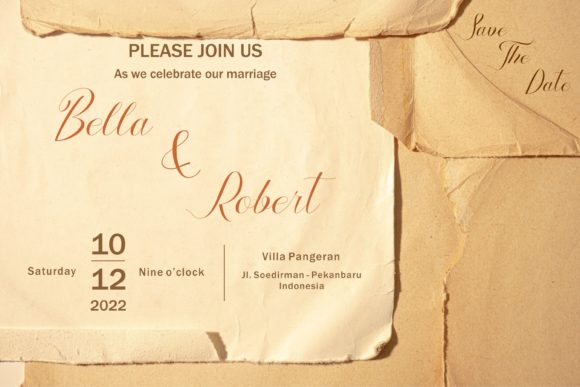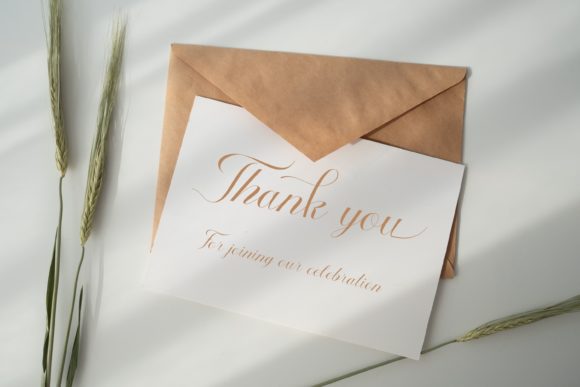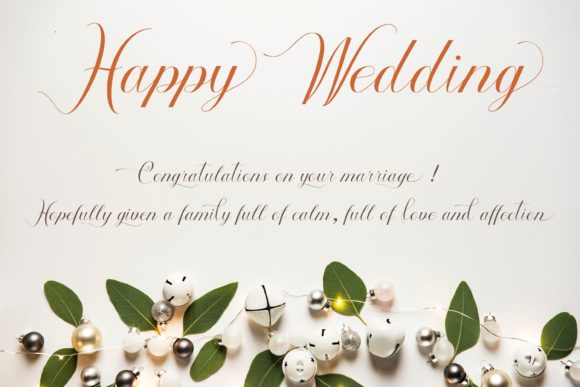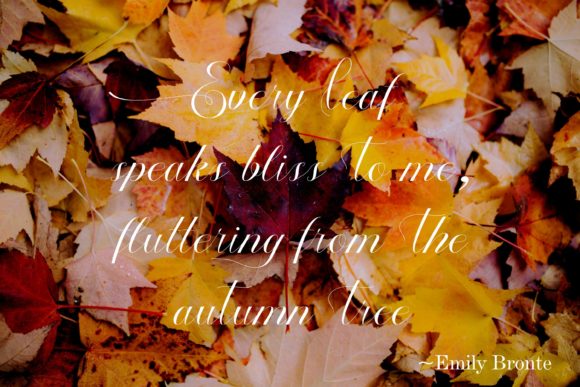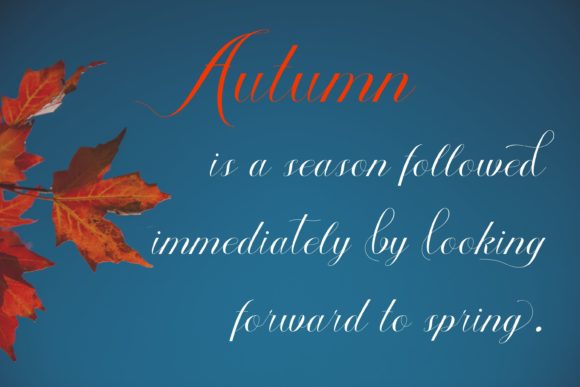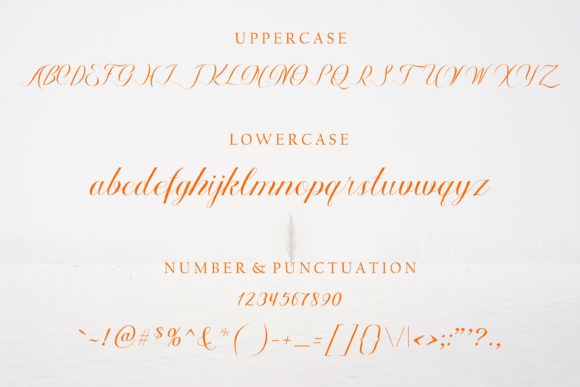
The Perfect Font for Fall: Discovering Autumn Font
As a designer, I’ve had my fair share of font struggles. I recall working on a project for a client who wanted a logo that screamed “autumn” – warm, cozy, and inviting. I spent hours scouring through font libraries, but nothing seemed to fit the bill. That was until I stumbled upon Autumn Font, a delicate and fashionable script font that has since become a staple in my design toolkit.
Autumn Font: A Designer’s Dream
Autumn Font is a beautifully crafted script font that’s perfect for any branding project, from logos and t-shirt printing to creative products and more. What sets it apart is its PUA encoding, which makes it easy to access all the glyphs and swashes. This means you can create stunning designs with varying levels of complexity and elegance.
What I Love About Autumn Font
- ✨ Elegant and flowing script style that’s perfect for autumn-themed designs
- 🎨 Highly versatile and can be used for a wide range of design projects
While Autumn Font is an excellent choice for designers, there are a few quirks to be aware of:
- ⚠️ Some users may find the font a bit too delicate for certain design applications
- 🤔 Limited availability of certain glyphs and swashes in certain design software
The Story Behind Autumn Font
Autumn Font was created by a talented designer who wanted to capture the essence of the autumn season in a font. Inspired by the changing leaves, cozy sweaters, and warm cups of coffee, the designer crafted a font that’s both elegant and inviting. While the designer’s story is shrouded in mystery, one thing is clear: Autumn Font is a masterpiece that’s sure to delight designers and non-designers alike.